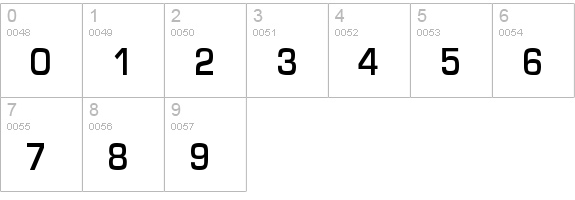
GardenwayCnd-Bo font is a stunning display typeface that exudes elegance and sophistication. Its sleek and modern design makes it perfect for a wide range of design projects, from branding to editorial content. With its bold and distinctive letterforms, GardenwayCnd-Bo font demands attention and adds a touch of class to any design. What sets GardenwayCnd-Bo font apart is that it is available for free download at FontsMarket.com. This means that you can access this beautiful typeface without any cost, making it a valuable addition to your font library. Whether you are a designer looking for a new font to elevate your projects or a business owner in need of a fresh look for your branding, GardenwayCnd-Bo font is the perfect choice. Embrace the beauty and versatility of GardenwayCnd-Bo font today and elevate your designs to new heights. Download it for free at FontsMarket.com and let your creativity shine with this stunning typeface.